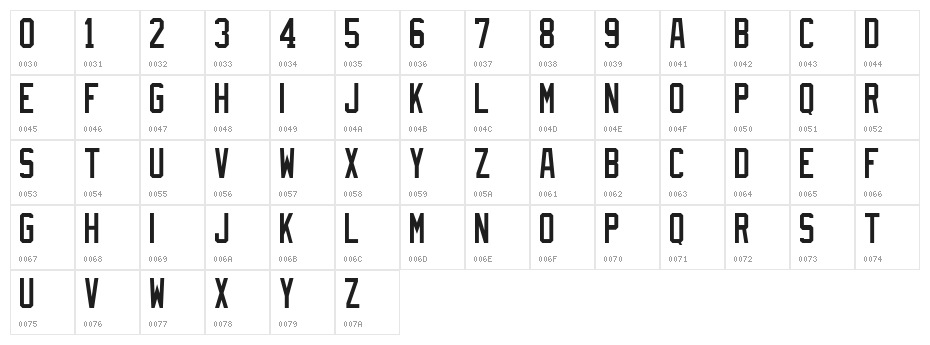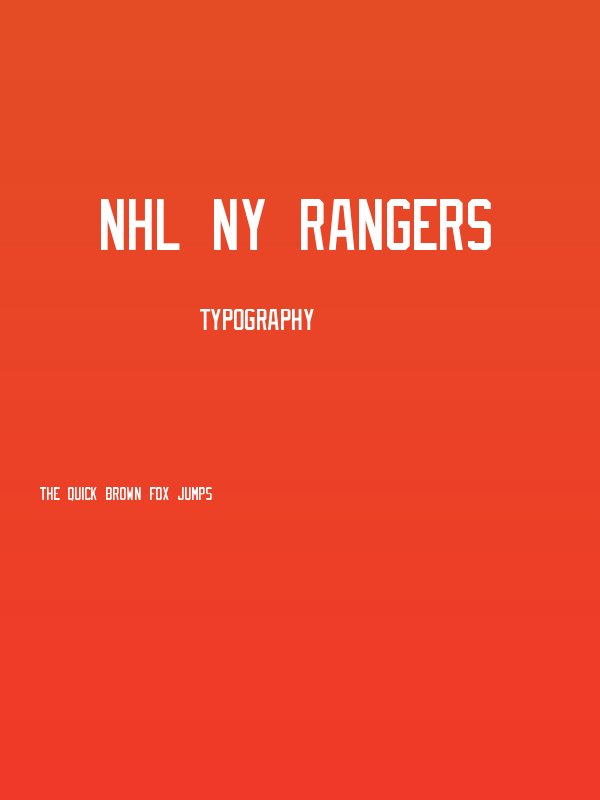
NHL NY Rangers Font
| Caso d'uso | Logos, Headlines |
| Progetti proposti | Perfect for sports team logos, merchandise, and branding materials requiring a strong, bold presence. |